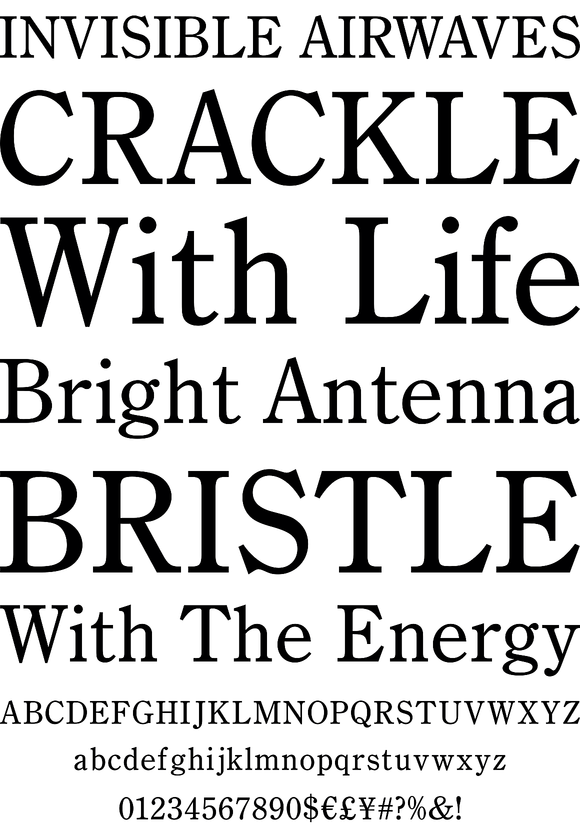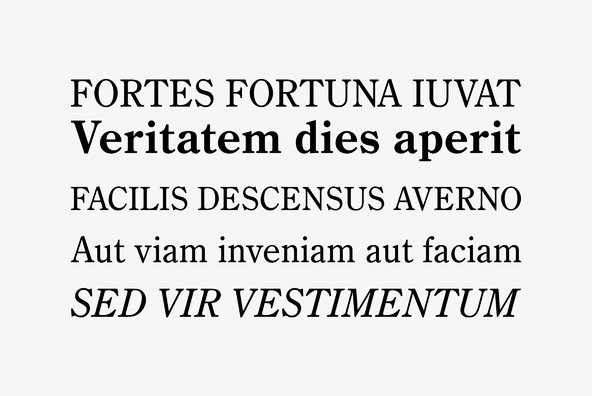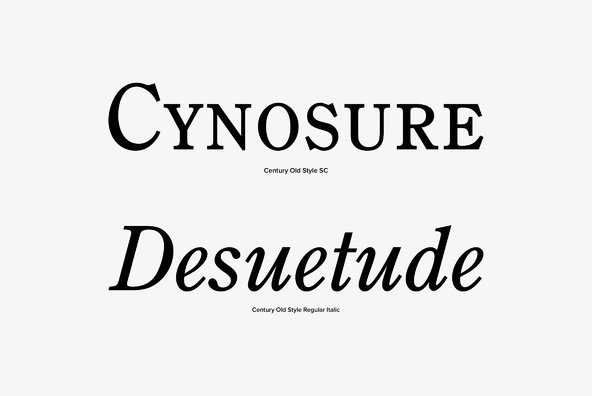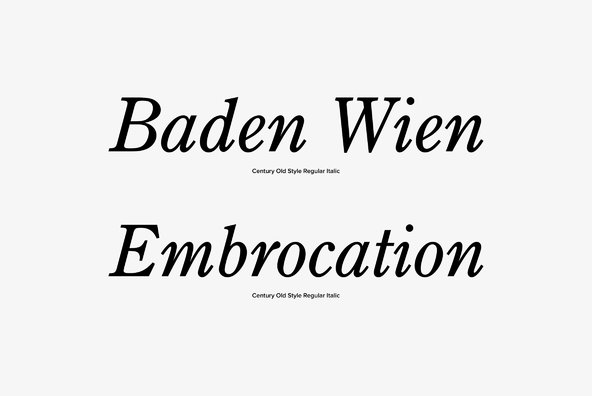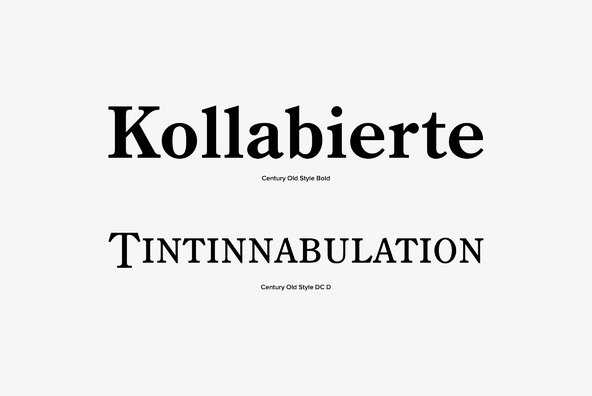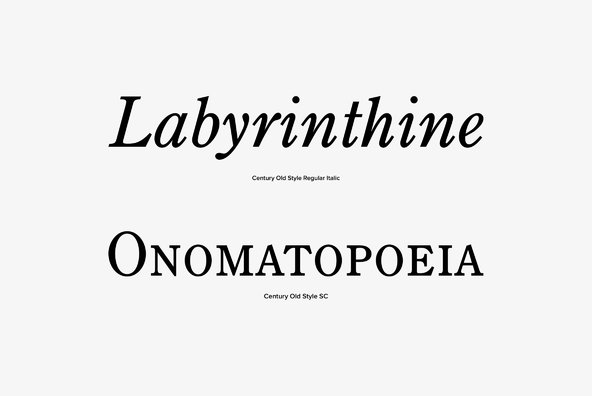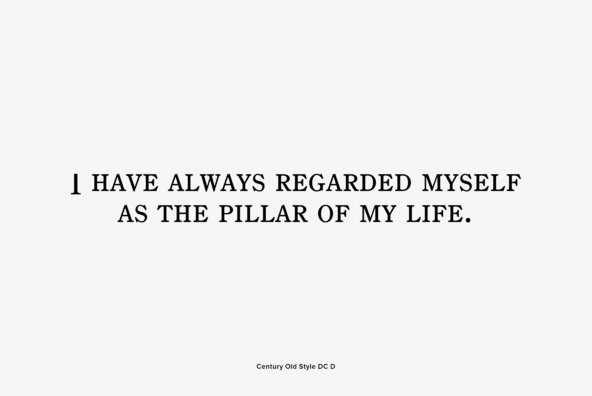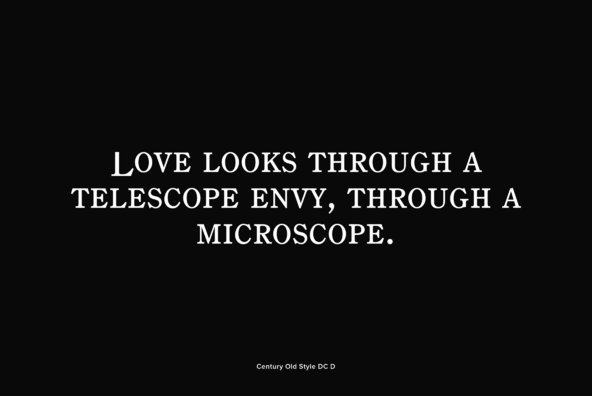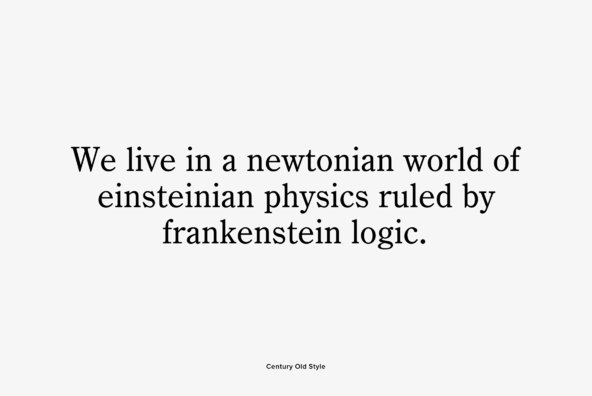
Designed buy Morris Fuller Benton in 1906 (American Typefounders), Century Old Style is an antique serif font released by URW. Contains language support for West, East, Turkish, Baltic, and Romanian.